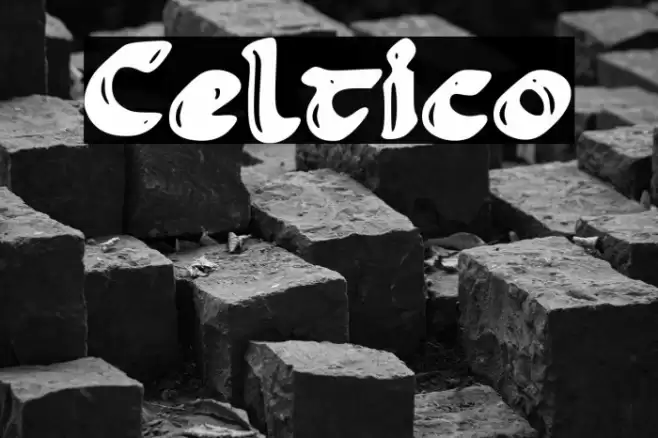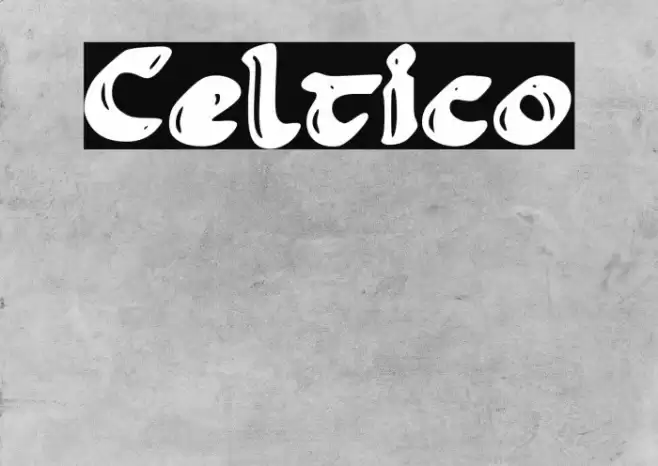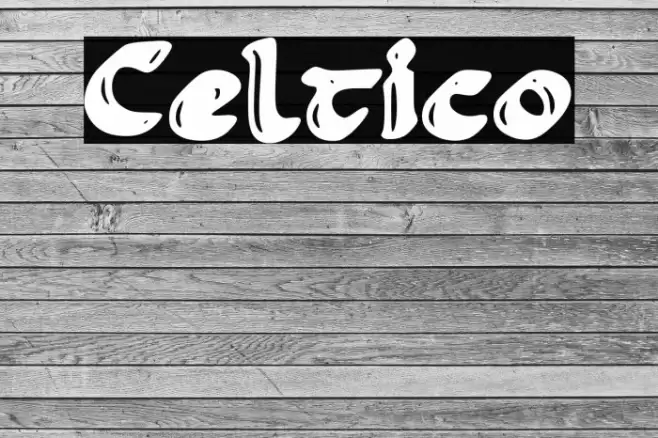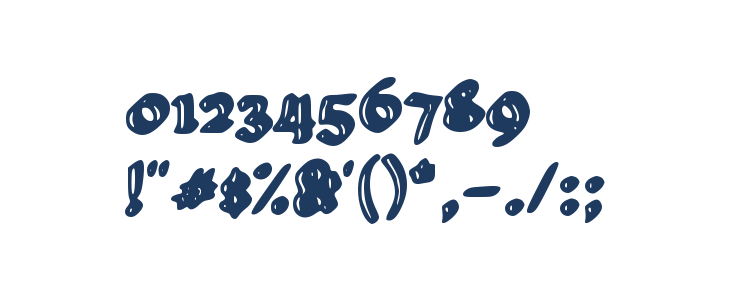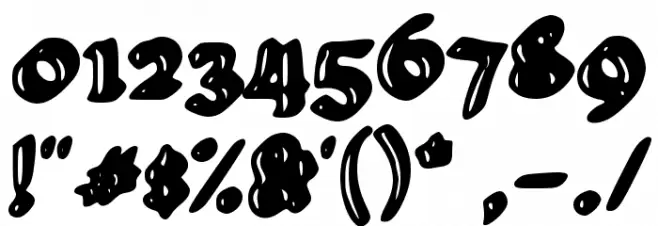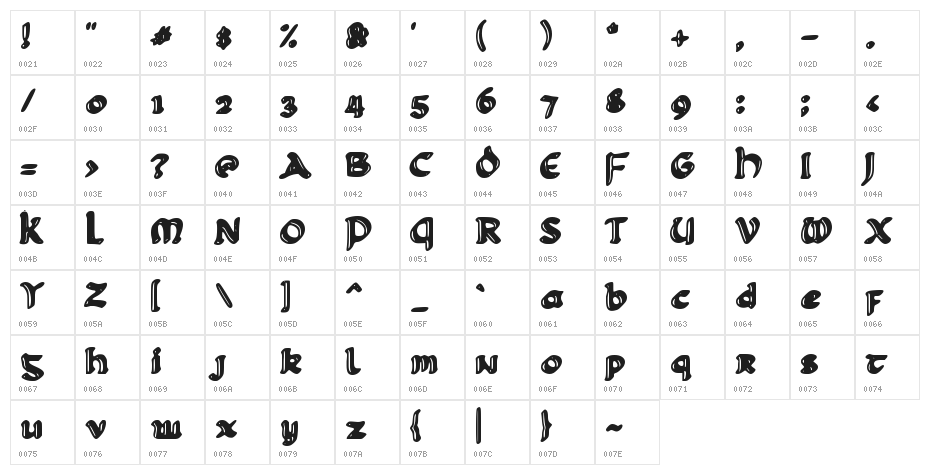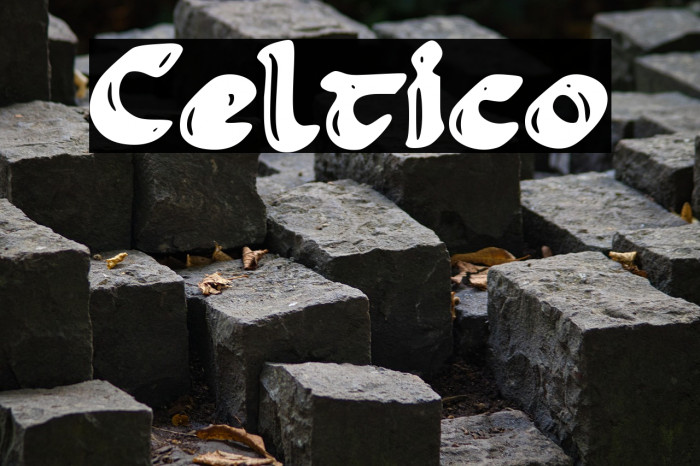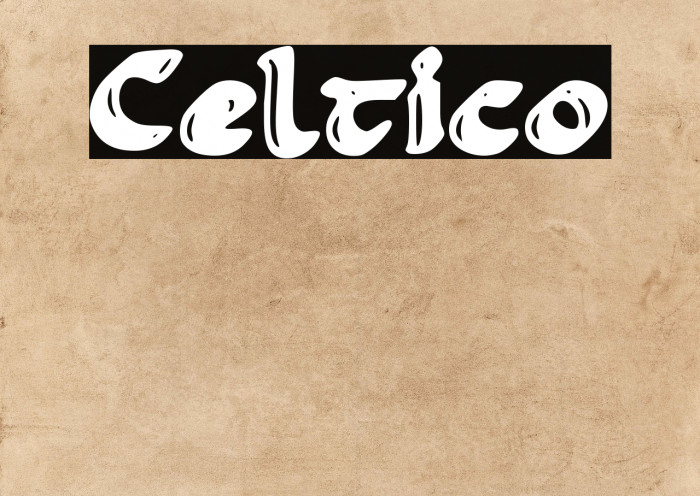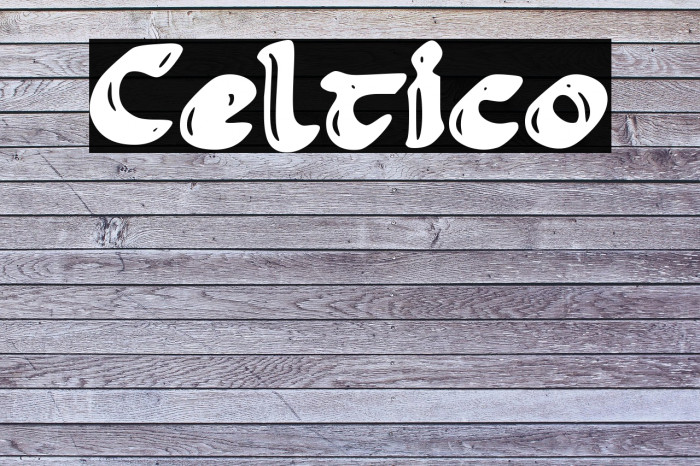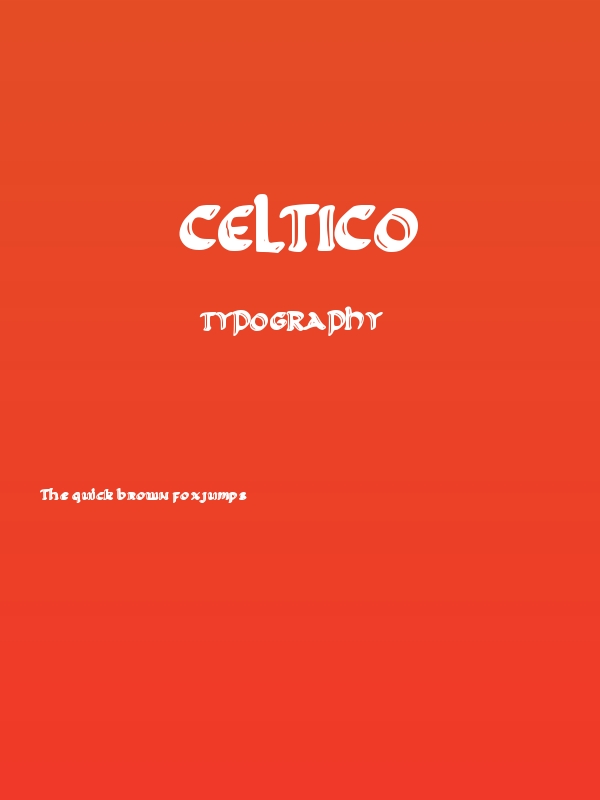
Celtico Font
Celtico Description
This font features a bold and decorative style with a strong Celtic influence. The characters are thick and rounded, with unique curves and angles that give them a distinct, almost mystical appearance. The uppercase letters are particularly striking, with exaggerated serifs and flourishes that add to the font's overall decorative nature. The lowercase letters maintain the same boldness and decorative elements, ensuring consistency throughout the typeface. Numbers and special characters are designed with the same attention to detail, making them suitable for a variety of creative applications. The font's playful yet sophisticated style makes it ideal for projects that require a touch of fantasy or historical flair.
A bold, decorative font with a Celtic-inspired design, featuring thick, rounded characters and unique curves from Uncategorized fonts.
- Proposed Projects: Ideal for fantasy-themed projects, historical designs, book covers, posters, and branding that requires a unique and decorative touch.